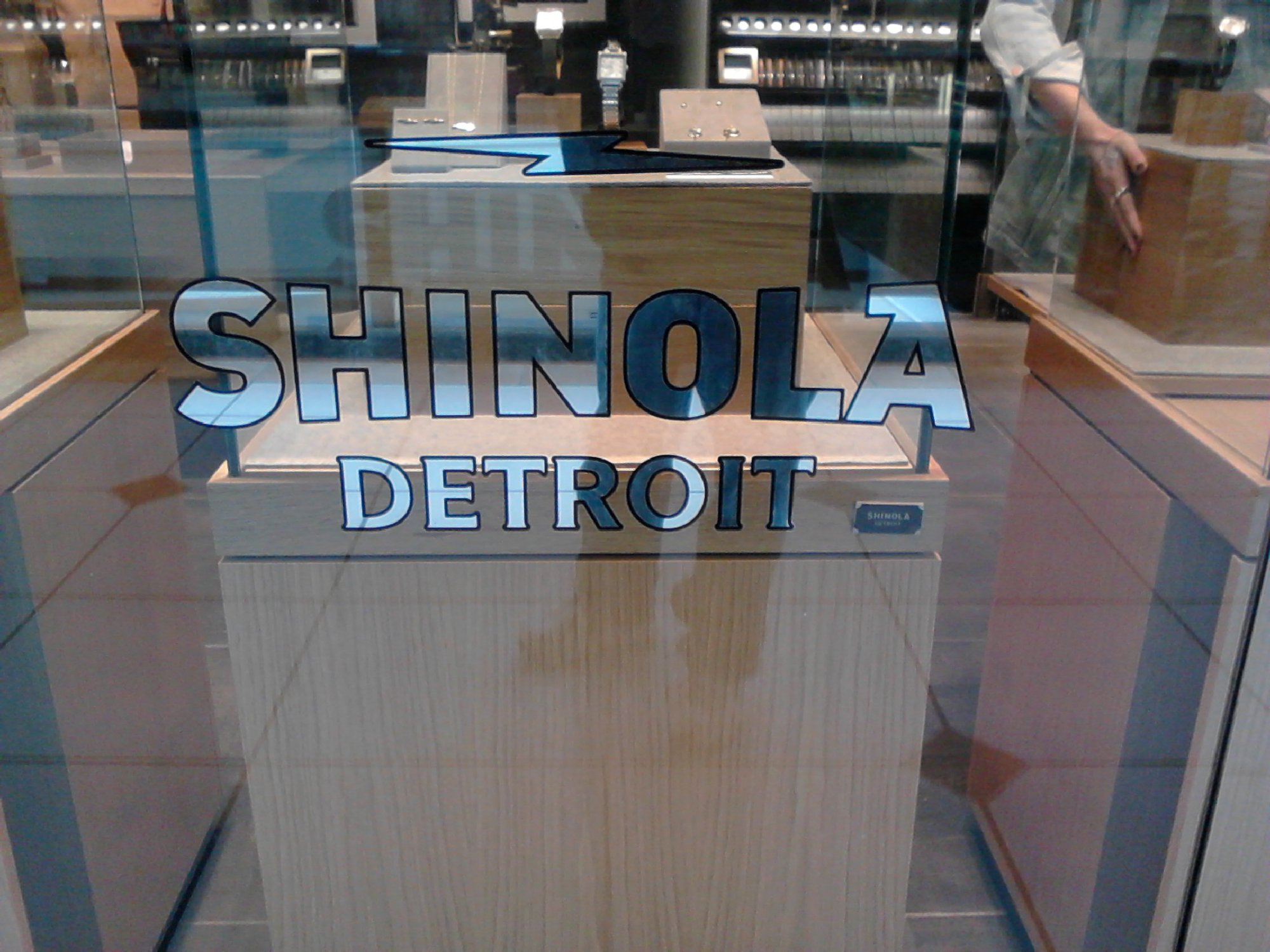
SILVER LEAF WINDOW
Just finished 3 Windows for Shinola.
Kevin....Is that silver or white gold? If silver how did you adjust your water size? She really shines BTW ;=)
Doug, this was Silver Leaf.
We used 2- 00 Capsules.
2 Drops of Detergent, since we Out-Lined First.